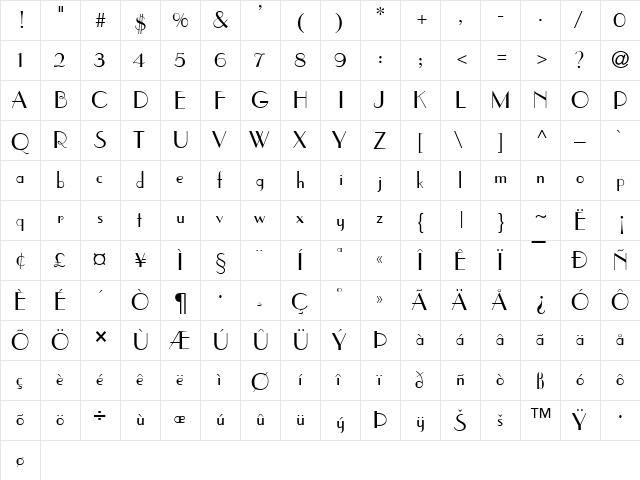
Elysee Normal Font Preview
Elysee Normal
Design Context for Elysee Typeface
Elysee offers clean, dependable letterforms without strong stylistic allegiance, making it a practical choice for designers who need flexibility.